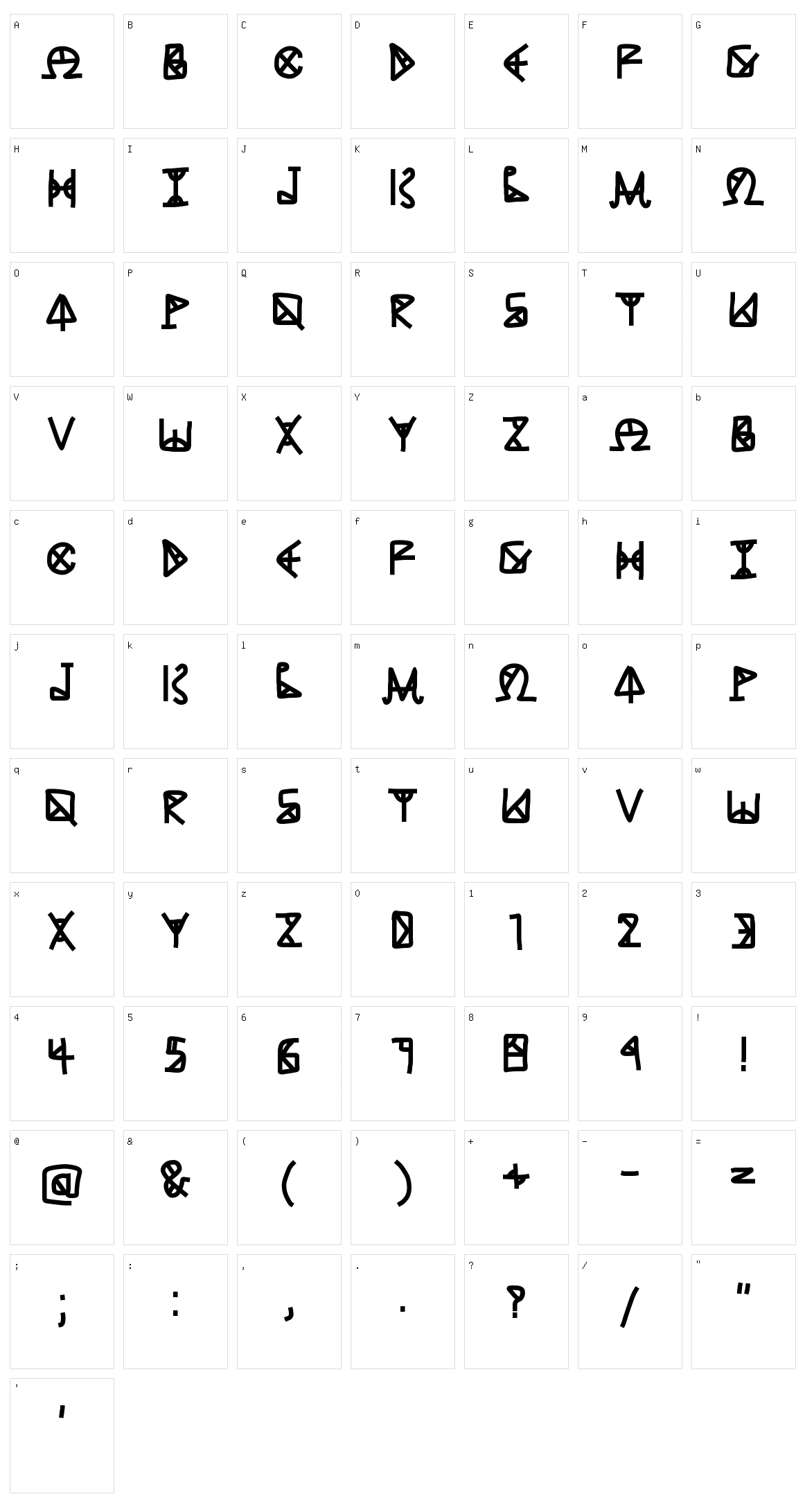
The free font Ancient Grease is carefully designed by Geronimo Font Studios, showcasing a thoughtful balance of creativity and usability and falls under the Roman-Greek font style. When you download the ZIP file, it contains only 12.27 KB of font files, making it lightweight and quick to download. Please review the license details below to understand permitted usage and distribution rights. If license information is not available, we recommend using this font for personal projects only or contacting the author directly for commercial usage permissions.